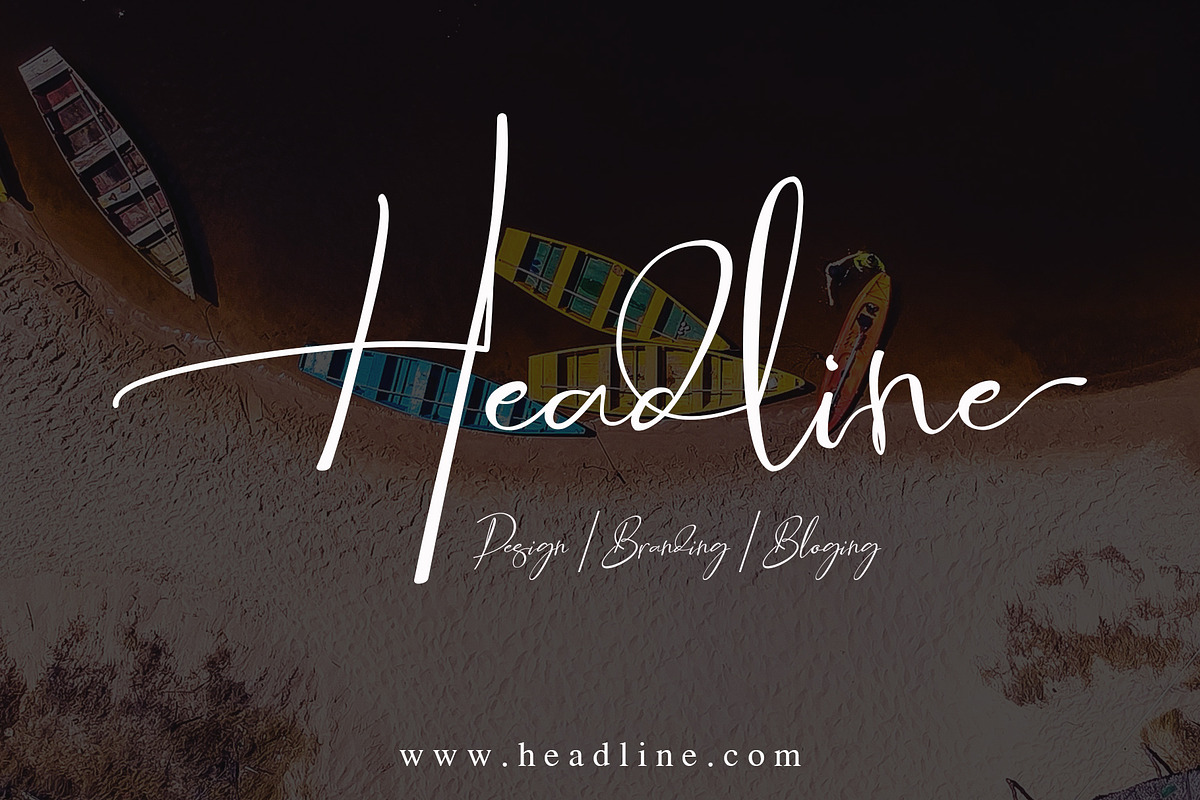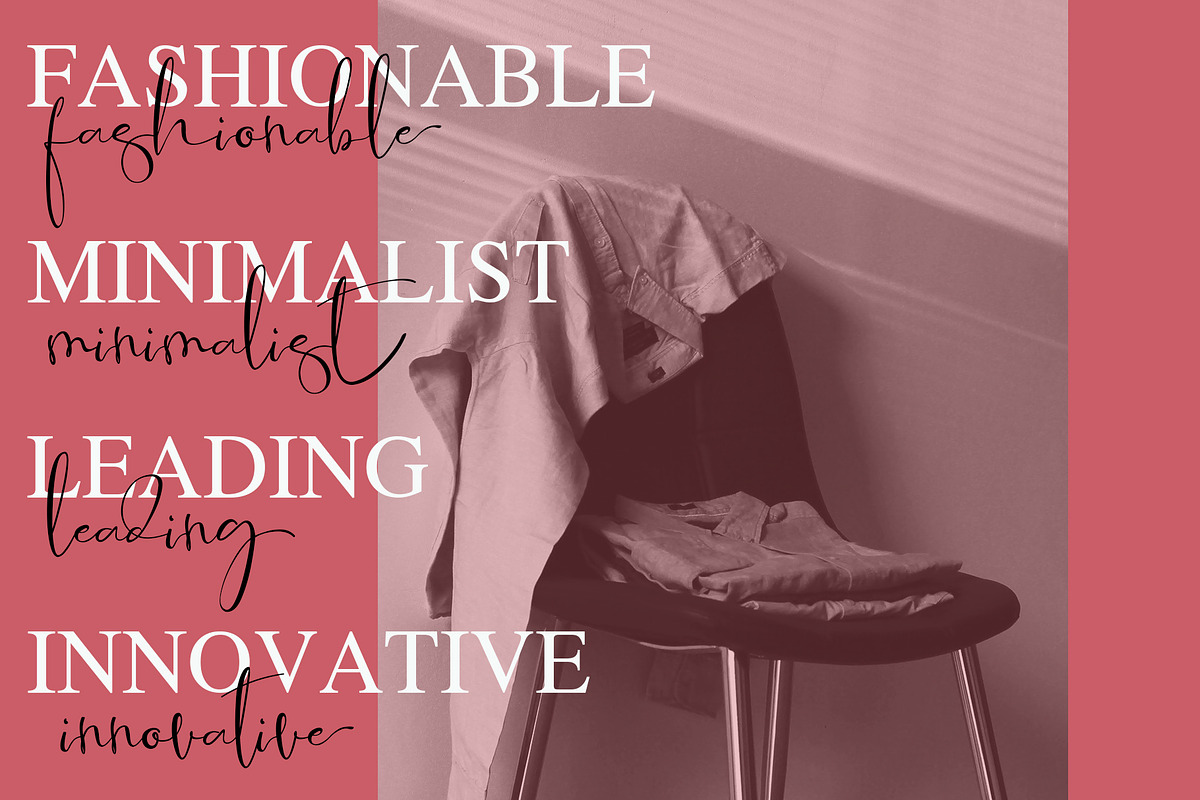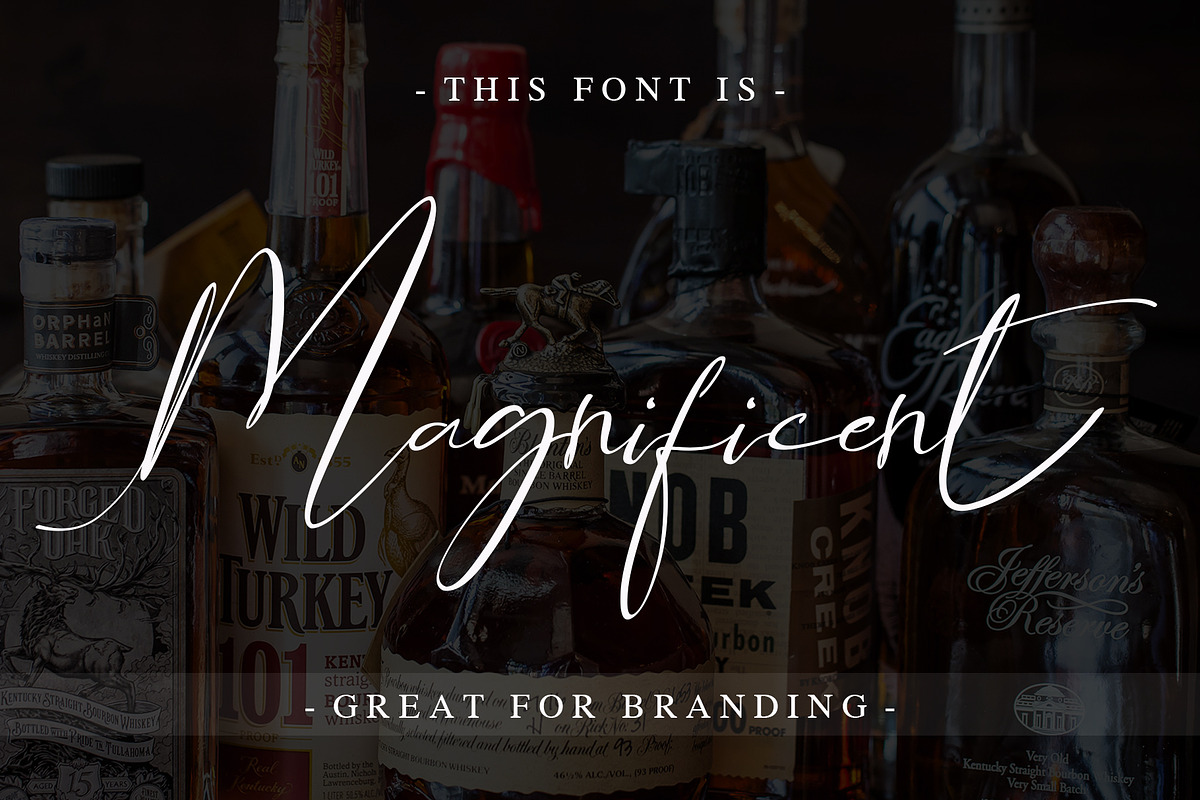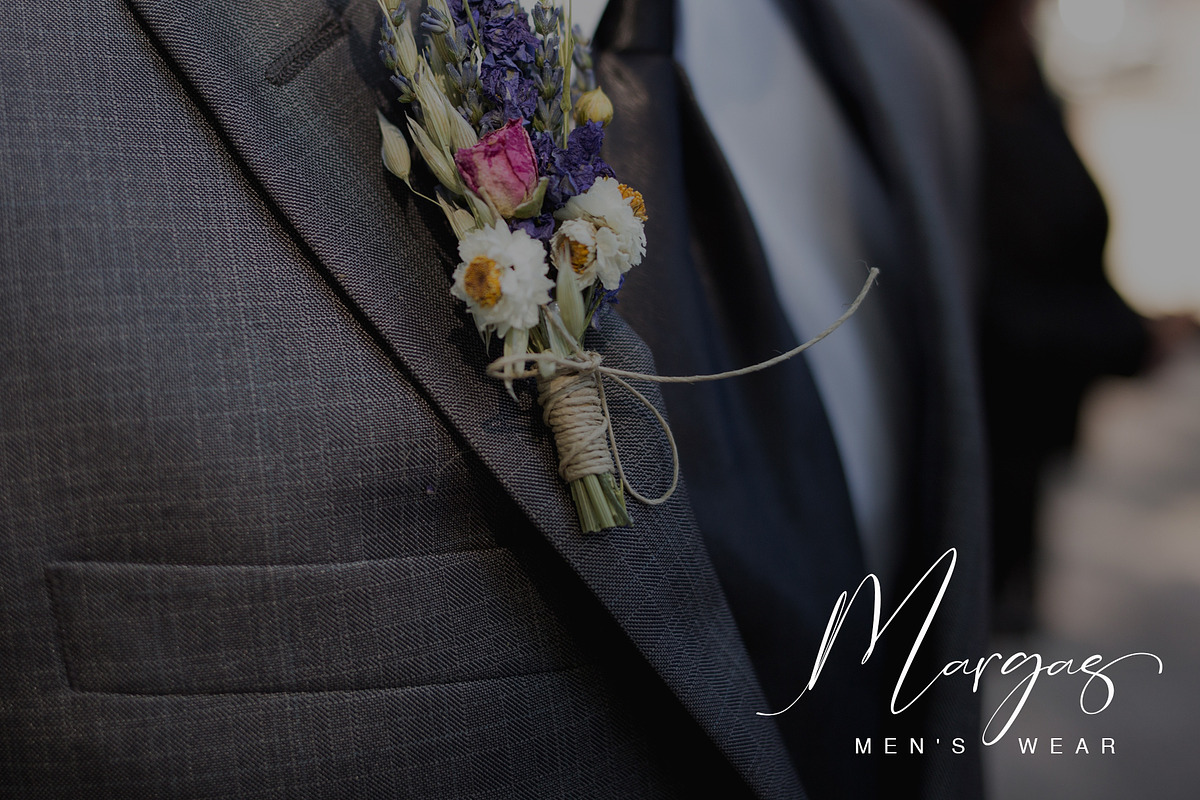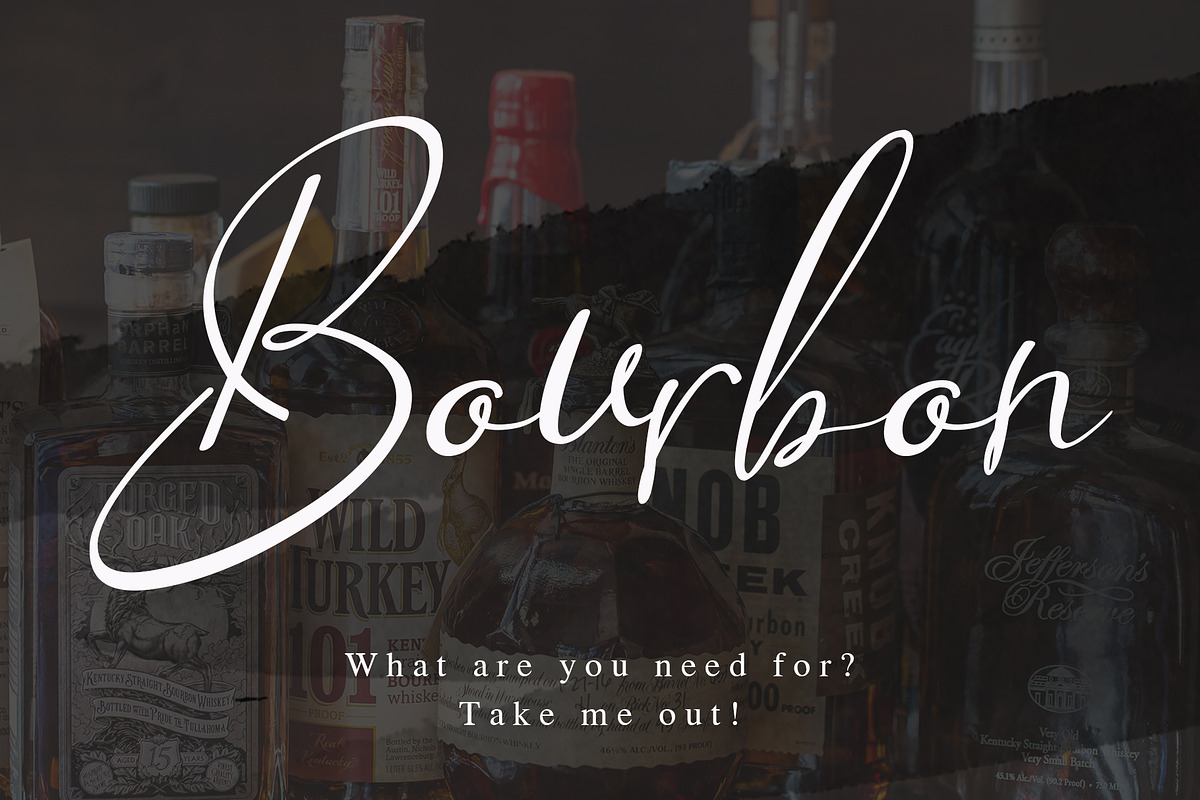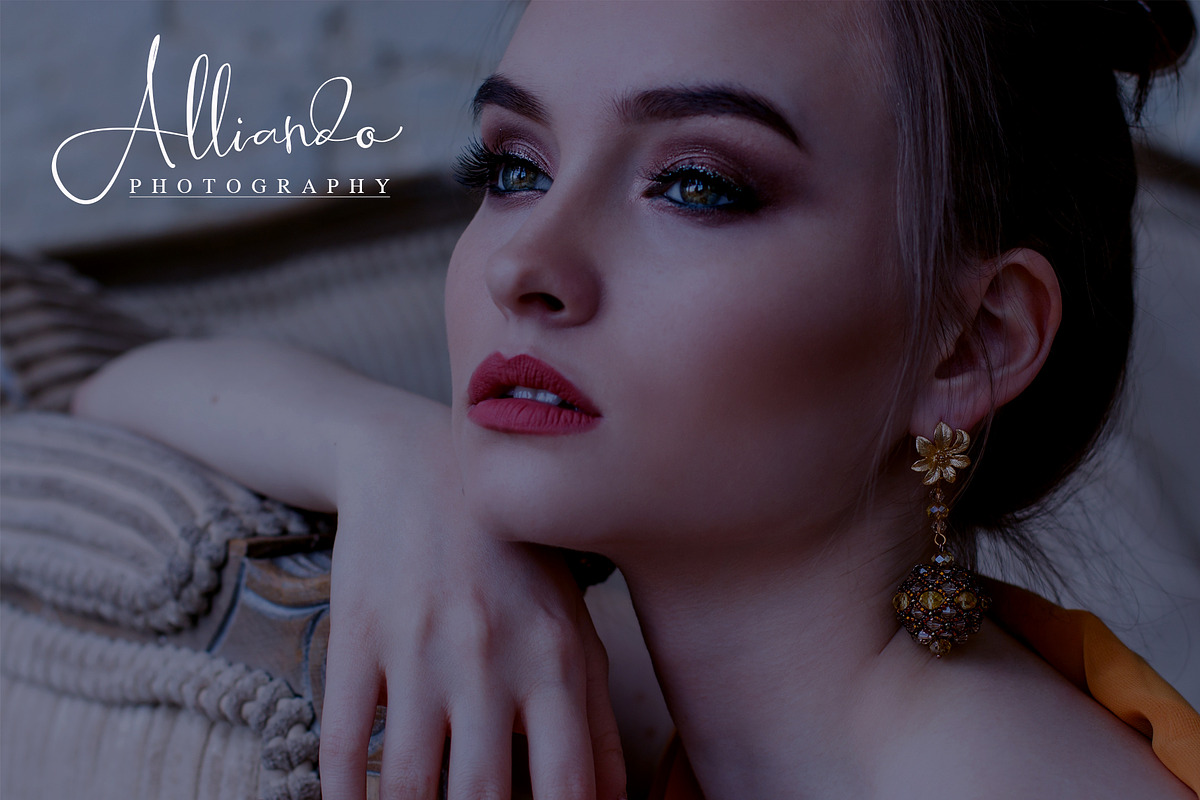
Asgard Signature Font
This is Asgard! Signature font for classy design, branding, headline, photography and etc.
Include Asgard slant version to elevate your design.
Why Asgard Signature Font is worth a look
Asgard Signature Font by Aldedesign fits naturally into Branding, posters, packaging, typography.